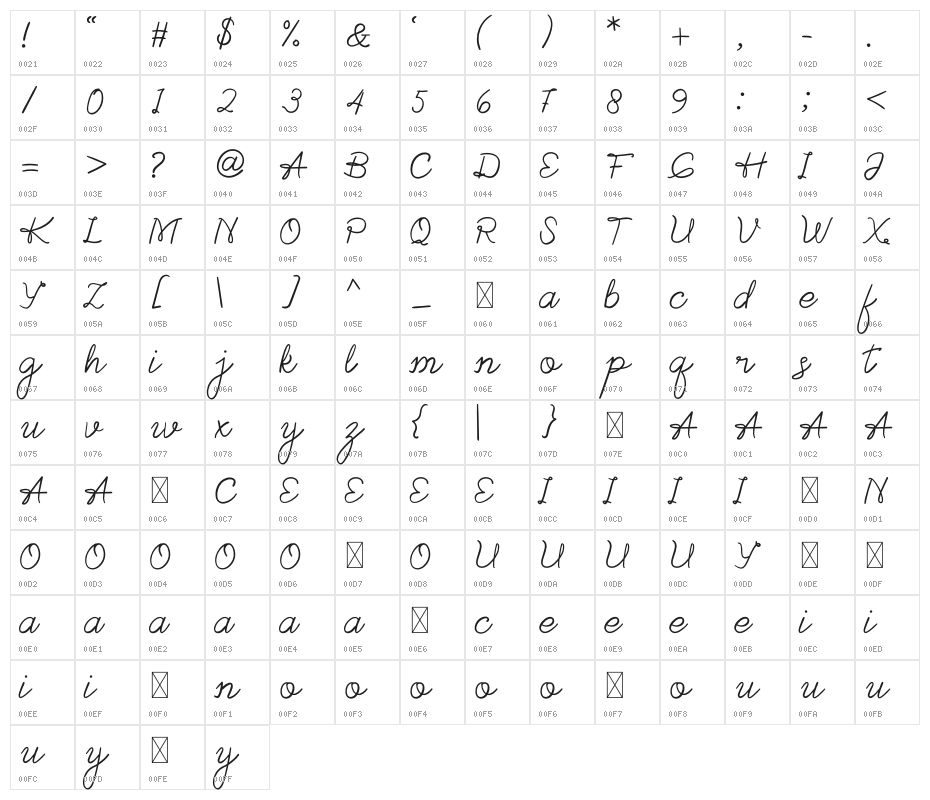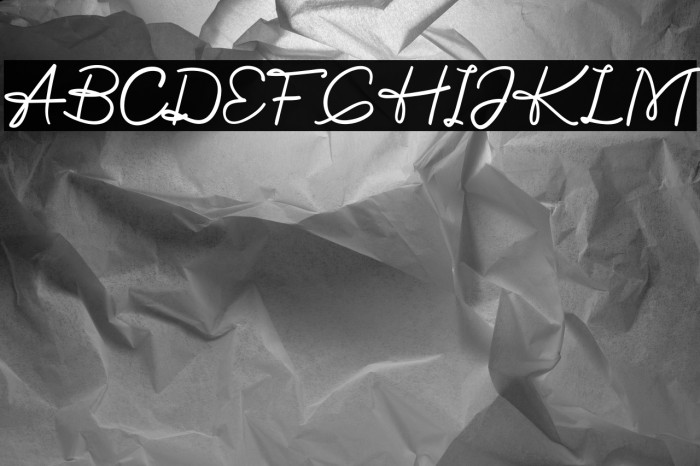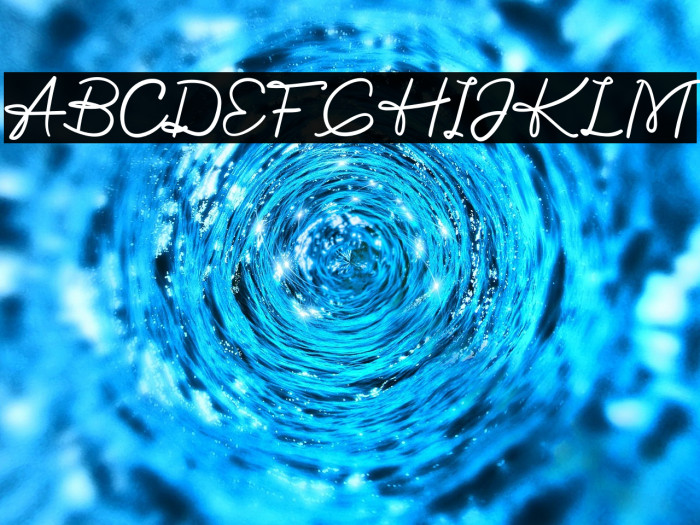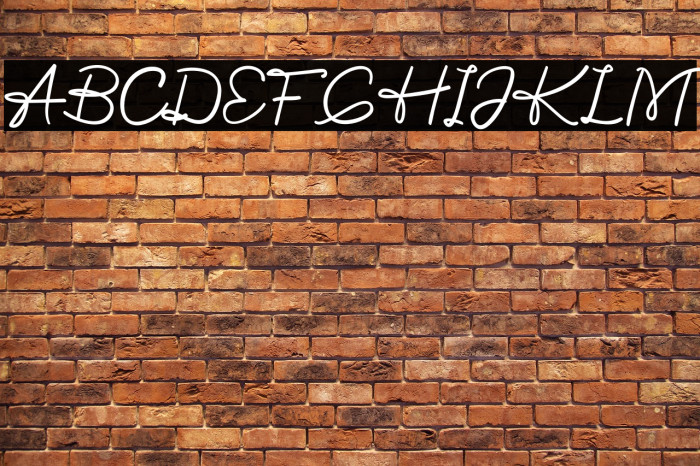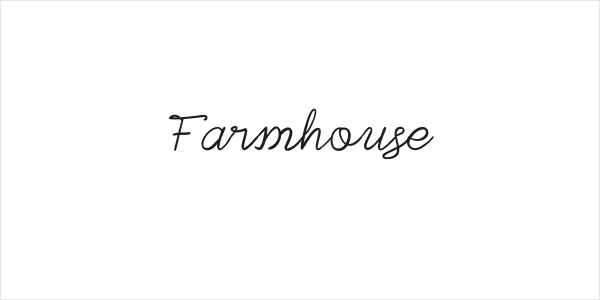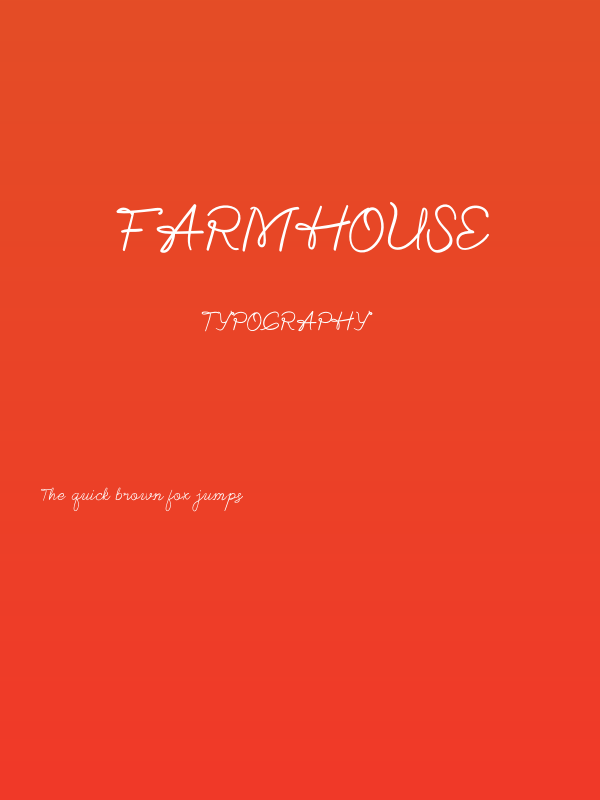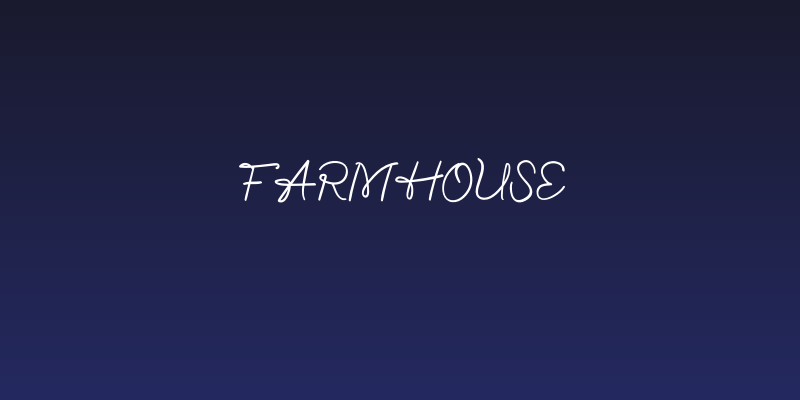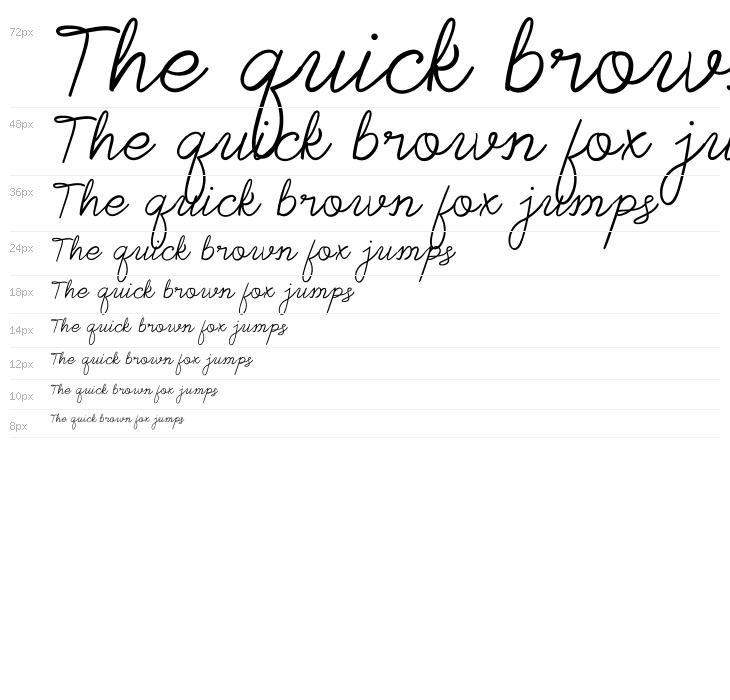
Farmhouse Font
Farmhouse Description
This font features a charming handwritten style with a smooth, flowing script that exudes a sense of elegance and personal touch. The characters are connected in a cursive manner, with a consistent stroke width that maintains readability while adding a touch of sophistication. The uppercase letters are slightly more ornate, with gentle loops and curves, while the lowercase letters are simpler and more streamlined. The numerals and special characters complement the overall style, maintaining the same fluidity and grace. This font is perfect for projects that require a personal, yet polished look.
| Overall Style | Elegant, Personal |
| Proposed Projects | Ideal for wedding invitations, greeting cards, personal branding, and elegant signage. |